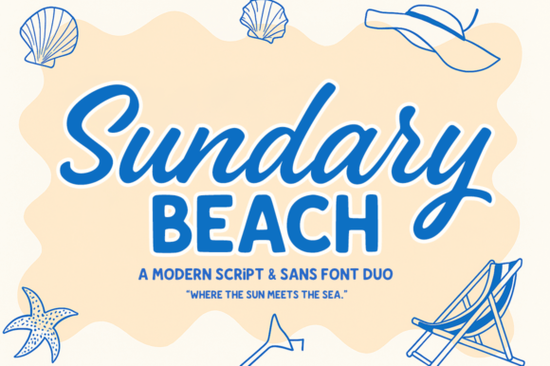
If you're looking for a clean, coastal-inspired font pairing that works equally well on a handmade greeting card or a boutique apparel label, the Sundary Beach Duo Font is worth your attention. It’s not just another script-and-sans combo it’s thoughtfully balanced, with a relaxed yet polished rhythm that feels intentional, not accidental. Designers and small business owners tell us they reach for it when they want typography that quietly supports their message instead of shouting over it.
What makes Sundary Beach different from other script + sans duos?
Most font duos lean heavily into contrast ultra-thin script paired with bold geometric sans, for example. Sundary Beach takes a softer approach. The script has gentle entry and exit strokes, subtle variation in line weight, and open letterforms that breathe like sea air. Its companion sans isn’t rigid or techy; it’s warm, slightly rounded, and proportioned to sit comfortably beside the script not compete with it. That harmony means less time adjusting tracking, kerning, or hierarchy. You get consistent visual flow right out of the box.
This makes it especially useful for projects where tone matters as much as legibility: wedding stationery, artisanal product labels, café menus, or Instagram quote graphics. It’s also popular among print-on-demand sellers who need fonts that scale well across mugs, tote bags, and wall art without losing character.
Where does it fit in your font library?
Think of Sundary Beach as your go-to for “effortless elegance.” It sits between formal calligraphy and playful handwritten styles closer to what you’d see on a well-designed coastal retreat brochure than a vintage soda label. If you already use fonts like Affection Font for romantic projects or Marney Holland Font for vintage charm, Sundary Beach offers a lighter, more contemporary alternative one that still feels personal and crafted.
It’s part of Creative Fabrica’s broader collection of all-in-one font bundles, which often include matching ligatures, alternates, and stylistic sets. But unlike some bundles that prioritize quantity over cohesion, this duo was built as a pair meaning the weights, x-heights, and spacing were designed together from the start.
Real-world uses (and what to avoid)
You’ll find Sundary Beach working well in these scenarios:
- Small business branding: Logo lockups, business cards, and packaging for lifestyle brands think organic skincare, linen shops, or coastal home goods.
- Craft projects: Vinyl cutting (the sans holds up cleanly at small sizes), hand-lettered-style digital invitations, and printable planners.
- Social media assets: Quote overlays, story highlights, and minimalist announcement graphics especially when paired with soft, natural photography.
It’s less ideal for dense body text, technical documentation, or high-contrast signage where maximum readability is non-negotiable. For those, stick with a dedicated text face. But for headlines, short phrases, and decorative accents? It delivers quiet confidence.
How it compares to similar coastal or lifestyle fonts
Unlike baseball-themed fonts, which lean sporty and energetic, Sundary Beach prioritizes calm and continuity. And while some beach-inspired fonts rely on obvious motifs (waves, shells, or sunbursts), this one communicates its theme through rhythm and proportion making it more versatile long-term. You won’t outgrow it after summer ends.
It also shares shelf space with other modern script duos like Sundary Beach Duo Font but stands out because it avoids over-stylization. No excessive swashes, no forced irregularity. Just two voices that sound like they belong in the same conversation.
If you’re building a font collection that balances practicality and personality and you appreciate type that feels human-made, not algorithm-generated Sundary Beach is a thoughtful addition. It won’t solve every layout challenge, but it solves a specific one beautifully: how to say something meaningful, simply, and with grace.